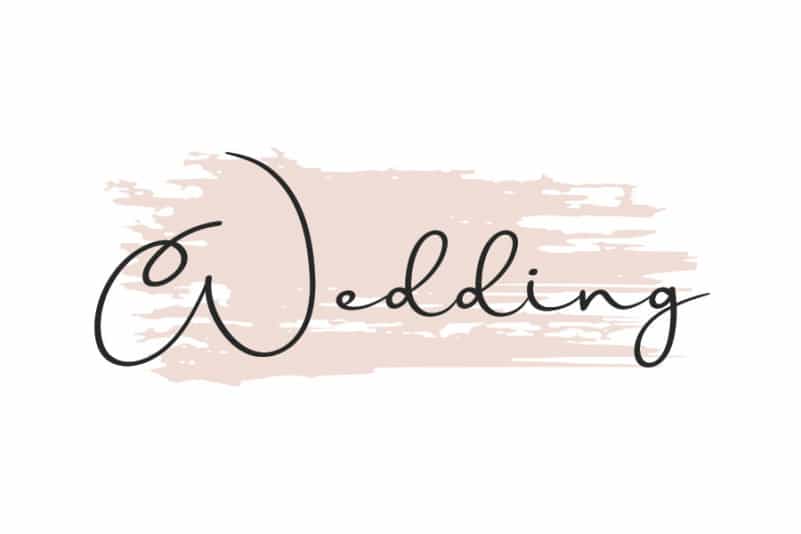
Jamilla Handwritten Font
Jamilla Handwritten Font is a sweet, round lettered handwritten font. Its distinct and flowing style makes this font incredibly versatile, fitting a wide pool of designs.
The latest style letters are perfect for wall displays, wedding invitations, social media post logos, advertisements, product packaging, product designs, labels, photography, watermarks, invitations, stationery, and any project that requires taste handwriting.